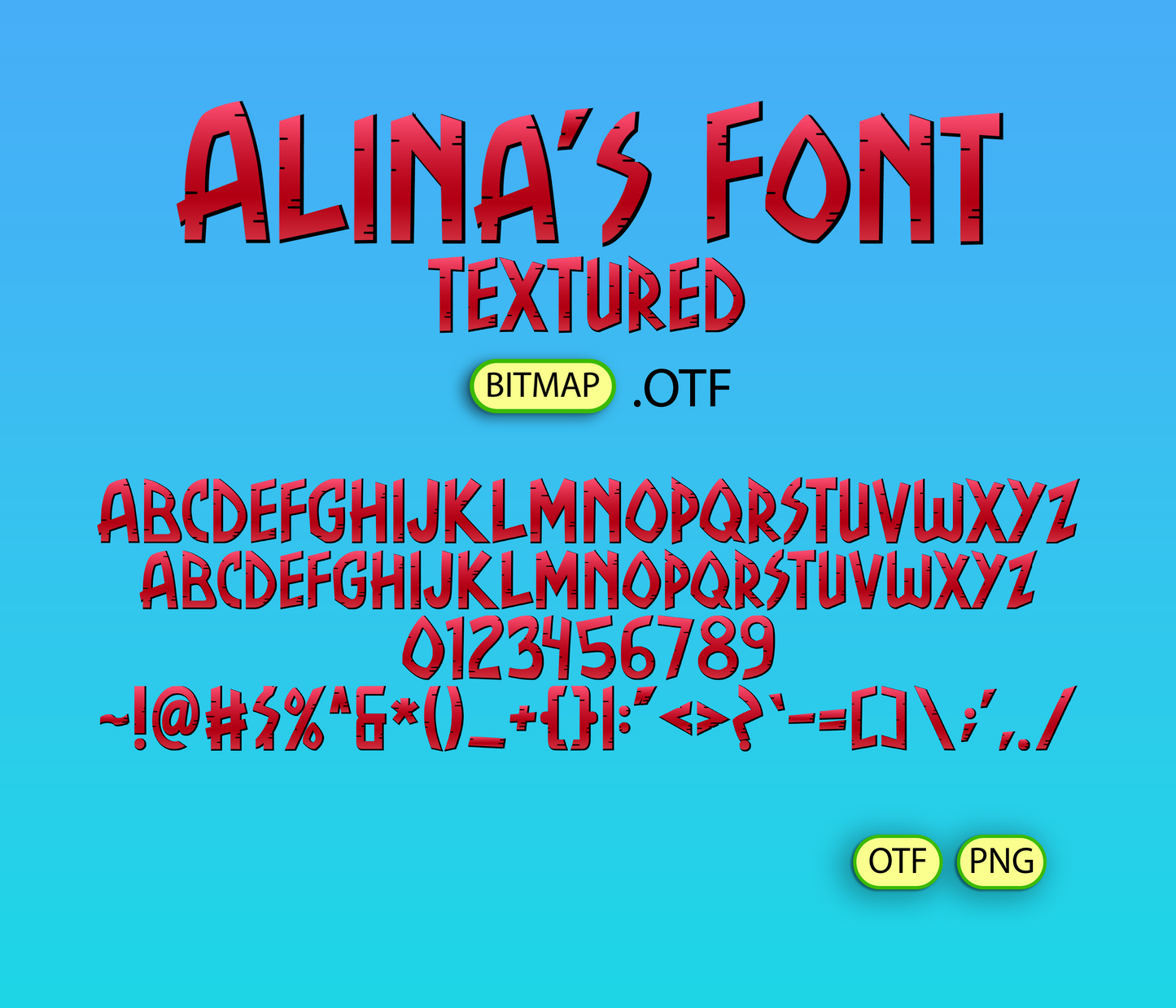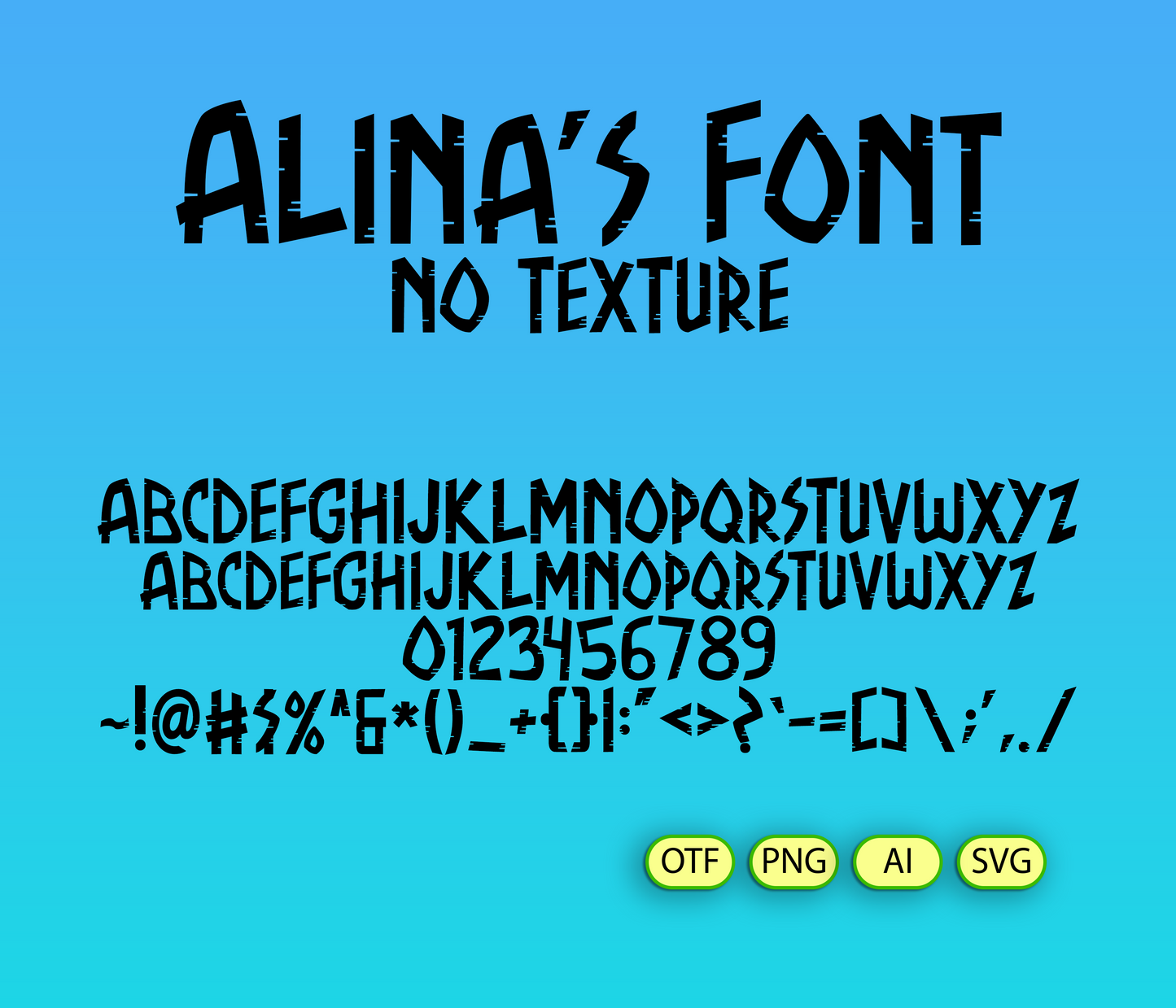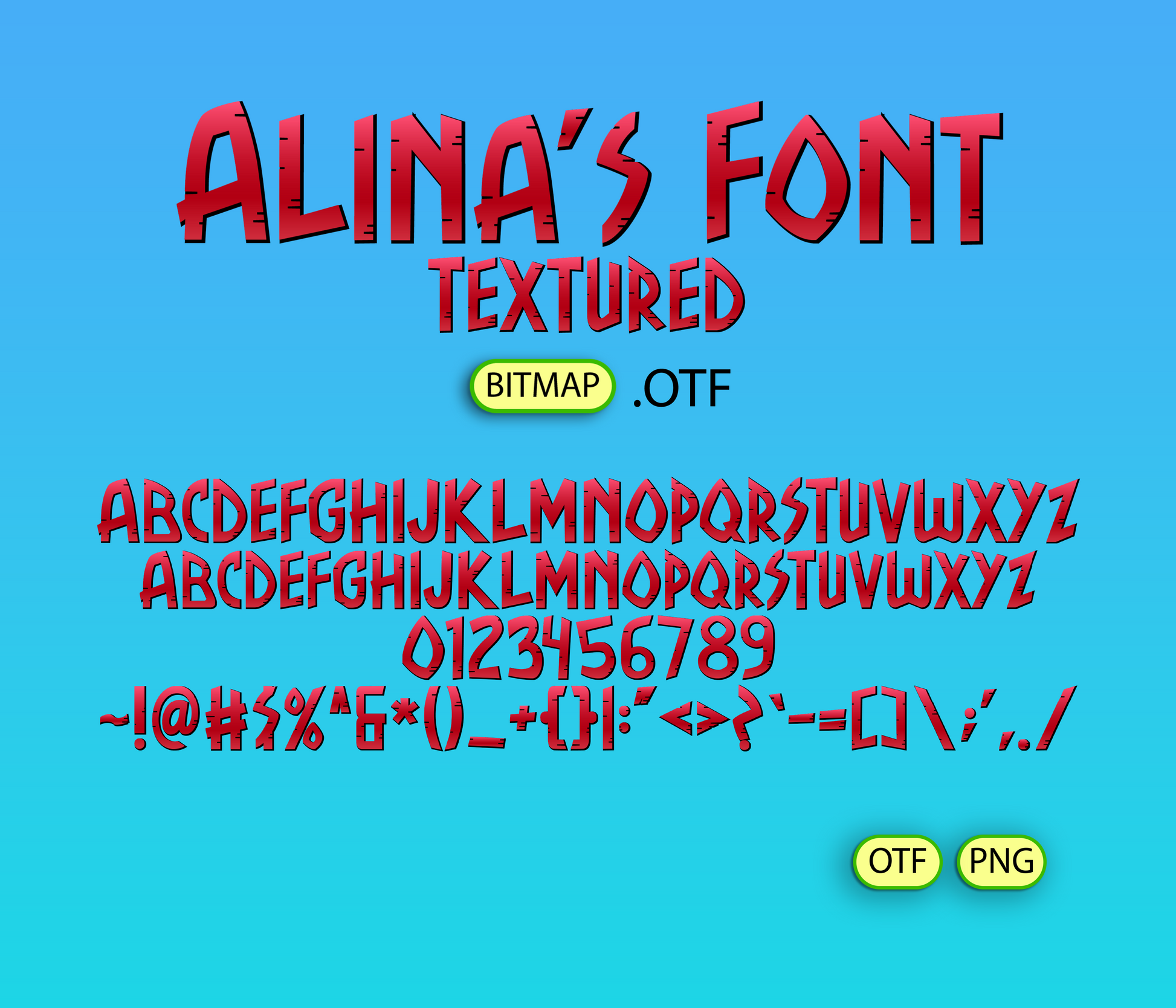
Nature's Harmony Font Textured
Experience the beauty and spirit of nature with our Nature's Harmony font, a typeface inspired by a legendary Native American heroine portrayed in a classic animated film. This font embodies the essence of strength, connection to nature, and cultural heritage, all reflected in a bold red hue that symbolizes passion and bravery. Each character in the Nature's Harmony font is crafted to convey the balance of elegance and earthiness, making it ideal for projects that aim to capture the harmony and spirit of the natural world.
What font is the Nature's Harmony font?
Envision a typeface that mirrors rich cultural heritage and natural surroundings. Our Nature's Harmony font is designed to reflect a blend of traditional Native American art and the fluid, natural forms found in the environment. This font features an extensive character set, including alphabets, numbers, and special symbols, offering a versatile toolkit for various design projects, from cultural educational materials to themed artistic creations.
What Can You Do With Nature's Harmony font?
The Nature's Harmony font is versatile and ideal for a wide range of creative and cultural applications:
- Educational Materials: Ideal for creating engaging teaching aids that focus on history, culture, or environmental studies.
- Themed Event Invitations: Craft beautiful invitations for events celebrating indigenous cultures or nature-themed gatherings.
- Cultural Merchandise Design: Perfect for designing apparel, posters, and souvenirs that resonate with fans of Native American art.
- Digital Content and Social Media: Use the font to add a vibrant and culturally rich touch to websites, blogs, and social media posts.
- Storytelling and Book Design: Enhance the visual storytelling in books, especially those focusing on folklore, history, or ecological themes.
- Greeting Cards and Stationery: Create personalized stationery or greeting cards with a unique cultural touch.
- Promotional Materials: Utilize the font in marketing campaigns for cultural events, educational programs, or eco-friendly initiatives.
- Interior Decor: Employ the font for wall art, decals, or signage in spaces inspired by indigenous art or natural themes.
- Creative Art and DIY Projects: Ideal for crafting, scrapbooking, and artistic projects inspired by Native American stories.
- Event Signage: Develop eye-catching signs and banners for cultural exhibitions, film screenings, or environmental campaigns.
- Textured and FREE Non-Textured Variants: Available in both a rich, vibrant style and a clean, non-textured version for diverse design needs.
- Comprehensive Character Set: Offers a wide range of characters for complete design versatility.
The Nature's Harmony font is more than just a typeface; it's an homage to the enduring legacy of indigenous cultures and their deep connection with nature.